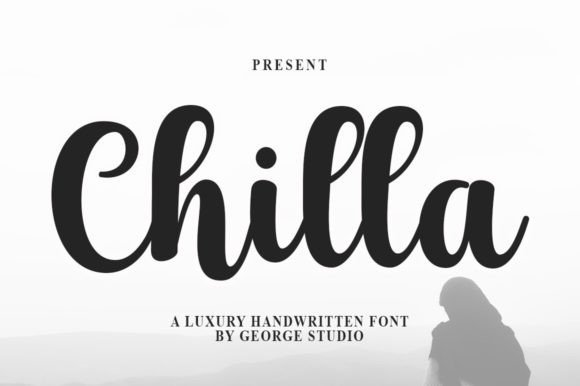
Introducing Chilla Font: Elevate Your Designs with Elegance and Charm
Are you looking for a font that exudes elegance, sophistication, and charm? Look no further than Chilla Font, a stunning script font that is sure to elevate any design project to new heights. In this article, we’ll take a closer look at Chilla Font, its features, and how it can be used to create beautiful designs that leave a lasting impression.
What is Chilla Font?
Chilla Font is a stylish script font that pays homage to classic calligraphy. Its elegant and charming design makes it perfect for a wide range of design projects, from branding and titles to wedding designs, invitations, signs, logos, labels, and more. With its beautiful lettering and flowing strokes, Chilla Font is sure to add a touch of sophistication and elegance to any design.
Key Features of Chilla Font
- Elegant and Charming Design: Chilla Font features a beautiful, flowing script design that is both elegant and charming.
- Classic Calligraphy Inspiration: The font is inspired by classic calligraphy, giving it a timeless and sophisticated feel.
- Versatile: Chilla Font can be used for a wide range of design projects, from branding and titles to wedding designs, invitations, signs, logos, labels, and more.
- High-Quality Design: The font is designed with high-quality craftsmanship, ensuring that it looks great in any design.
How to Use Chilla Font in Your Designs
Chilla Font is a versatile font that can be used in a variety of design projects. Here are some ideas to get you started:
- Branding: Use Chilla Font to create elegant and sophisticated brand identities, including logos, business cards, and letterheads.
- Wedding Designs: Add a touch of elegance and romance to your wedding designs, including invitations, programs, and place cards.
- Titles and Headings: Use Chilla Font to create beautiful titles and headings for your designs, including posters, flyers, and brochures.
- Signs and Labels: Use Chilla Font to create eye-catching signs and labels for your business or event.
Benefits of Using Chilla Font
There are many benefits to using Chilla Font in your designs. Here are a few:
- Elegance and Sophistication: Chilla Font adds a touch of elegance and sophistication to any design.
- Versatility: The font can be used for a wide range of design projects, making it a great addition to any designer’s toolkit.
- High-Quality Design: Chilla Font is designed with high-quality craftsmanship, ensuring that it looks great in any design.
- Easy to Read: The font is easy to read, making it perfect for designs that require a clear and concise message.
Tips for Getting the Most Out of Chilla Font
Here are a few tips for getting the most out of Chilla Font:
- Use it Sparingly: Use Chilla Font sparingly to add emphasis and elegance to your designs.
- Pair it with Other Fonts: Pair Chilla Font with other fonts to create a unique and interesting design.
- Experiment with Colors: Experiment with different colors to find the perfect combination for your design.
- Pay Attention to Kerning: Pay attention to kerning to ensure that your design looks professional and polished.
Chilla Font is a stunning script font that is sure to elevate any design project to new heights. With its elegant and charming design, classic calligraphy inspiration, and versatility, it’s the perfect addition to any designer’s toolkit. Whether you’re creating branding, titles, wedding designs, invitations, signs, logos, labels, or more, Chilla Font is sure to add a touch of sophistication and elegance to your designs.
- What is Chilla Font? Chilla Font is a stylish script font that pays homage to classic calligraphy.
- What can I use Chilla Font for? Chilla Font can be used for a wide range of design projects, including branding, titles, wedding designs, invitations, signs, logos, labels, and more.
- Is Chilla Font easy to read? Yes, Chilla Font is easy to read, making it perfect for designs that require a clear and concise message.